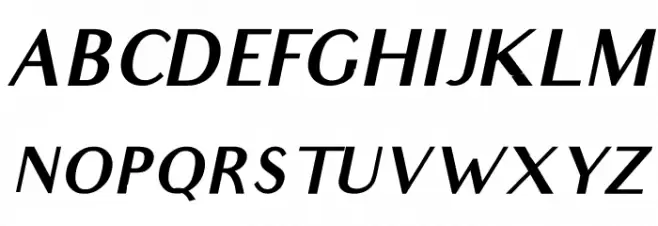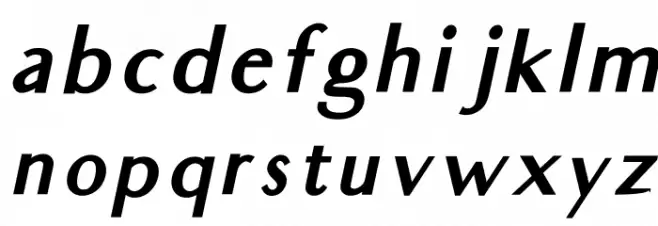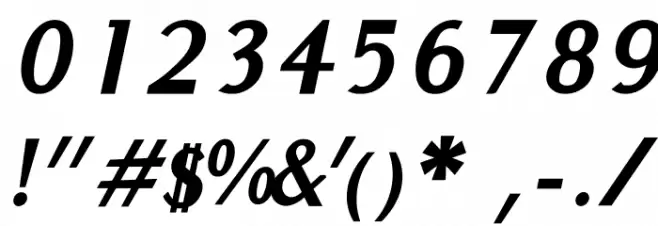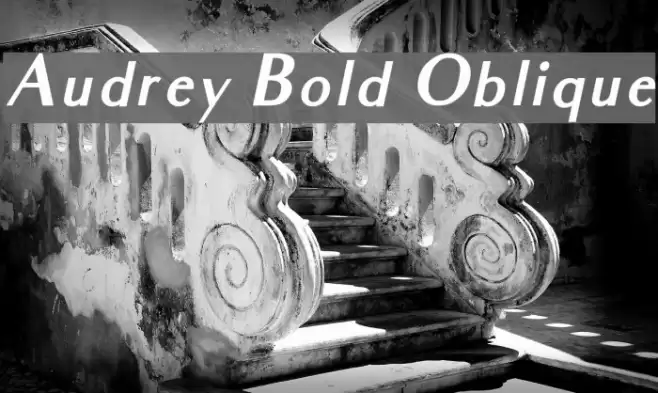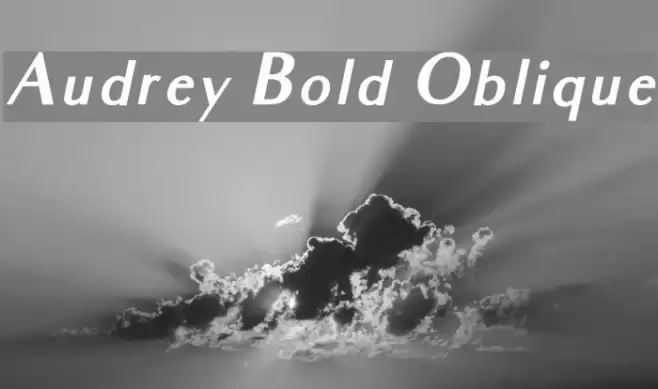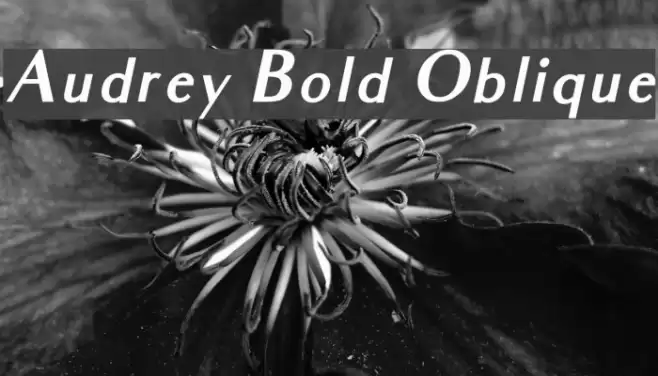
Audrey Bold Oblique
This font features a bold and oblique style, characterized by its strong and dynamic slant. The uppercase letters are elegantly elongated, while the lowercase letters maintain a consistent flow, enhancing readability. The numerals are clear and distinct, making them suitable for various applications. Special characters are well-defined, adding versatility to the font. The overall design exudes a modern and sophisticated feel, making it ideal for projects that require a touch of elegance and boldness.
A bold, oblique font with a modern and sophisticated style.
- Proposed Projects: Ideal for branding, advertising, headlines, and editorial design where a bold statement is needed.
- Use Case: Headlines, Logos, Branding